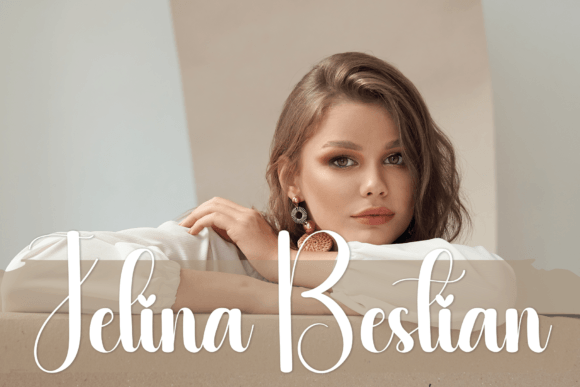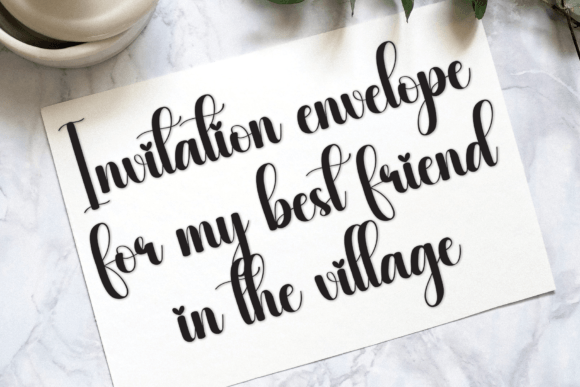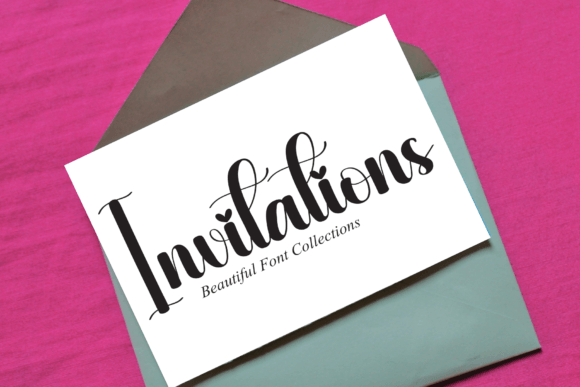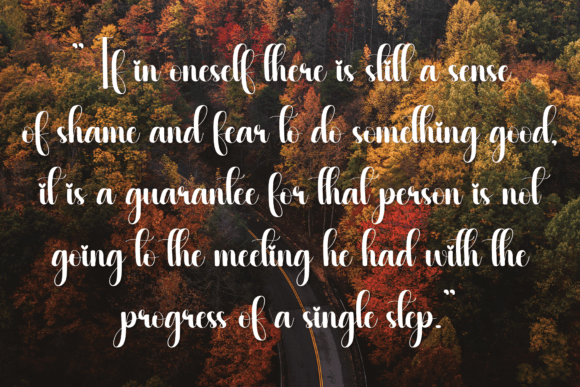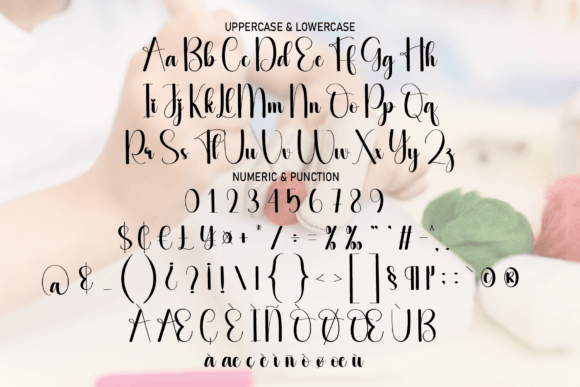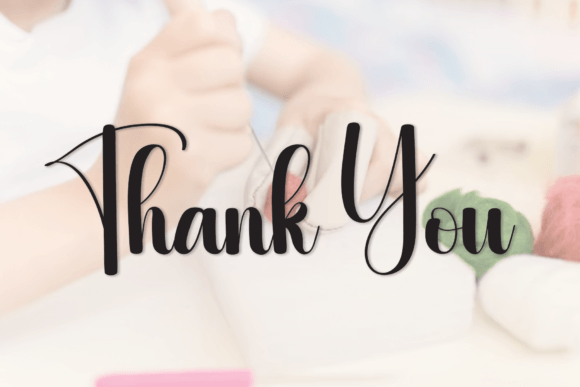
Introducing Handcrafted Font: The Perfect Handwritten Style for Your Creative Projects
Are you a designer or crafter looking for a unique and tasteful handwritten font to elevate your creative projects? Look no further than Handcrafted Font, a sweet and stylish handwritten font that’s perfect for a variety of applications. In this article, we’ll explore the features and benefits of Handcrafted Font, and show you how it can be used to add a personal touch to your designs.
What is Handcrafted Font?
Handcrafted Font is a beautifully designed handwritten font that’s characterized by its latest style letters and elegant script. The font is perfect for creating eye-catching wall displays, wedding invitations, social media post logos, advertisements, product packaging, product designs, labels, photography, watermarks, invitations, stationery, and any other project that requires a tasteful handwriting style.
Key Features of Handcrafted Font
- Unique and Handwritten Style: Handcrafted Font boasts a distinctive handwritten style that’s both elegant and playful. The font’s unique characters and letters are carefully crafted to give your designs a personal touch.
- Latest Style Letters: The font features the latest style letters that are perfect for modern designs. The letters are carefully designed to be both stylish and legible.
- Versatile and Multi-Purpose: Handcrafted Font is a versatile font that can be used for a wide range of projects, from wedding invitations to social media posts, and from product packaging to stationery.
- Easy to Read and Understand: Despite its handwritten style, Handcrafted Font is easy to read and understand, making it perfect for designs that require a personal touch without sacrificing legibility.
Benefits of Using Handcrafted Font
Using Handcrafted Font in your designs can bring a range of benefits, including:
- Adding a Personal Touch: Handcrafted Font’s unique and handwritten style can add a personal touch to your designs, making them stand out from the crowd.
- Creating Emotional Connections: The font’s elegant and playful style can help create emotional connections with your audience, making your designs more relatable and engaging.
- Enhancing Brand Identity: Handcrafted Font can be used to enhance your brand identity by adding a touch of personality and elegance to your designs.
- Standing Out from the Crowd: The font’s unique style can help your designs stand out from the crowd, making them more noticeable and memorable.
Using Handcrafted Font in Your Designs
Handcrafted Font can be used in a variety of design applications, including:
- Wedding Invitations: The font’s elegant and playful style makes it perfect for wedding invitations, adding a touch of romance and sophistication.
- Social Media Posts: Handcrafted Font can be used to create eye-catching social media posts that stand out from the crowd.
- Product Packaging: The font’s unique style can be used to add a personal touch to product packaging, making it more noticeable and memorable.
- Stationery: Handcrafted Font can be used to create beautiful stationery, including letterheads, business cards, and notebooks.
In conclusion, Handcrafted Font is a beautiful and versatile handwritten font that’s perfect for designers and crafters looking to add a personal touch to their creative projects. With its unique and elegant style, the font can be used for a wide range of applications, from wedding invitations to social media posts, and from product packaging to stationery. Whether you’re looking to create emotional connections with your audience, enhance your brand identity, or simply stand out from the crowd, Handcrafted Font is the perfect choice.